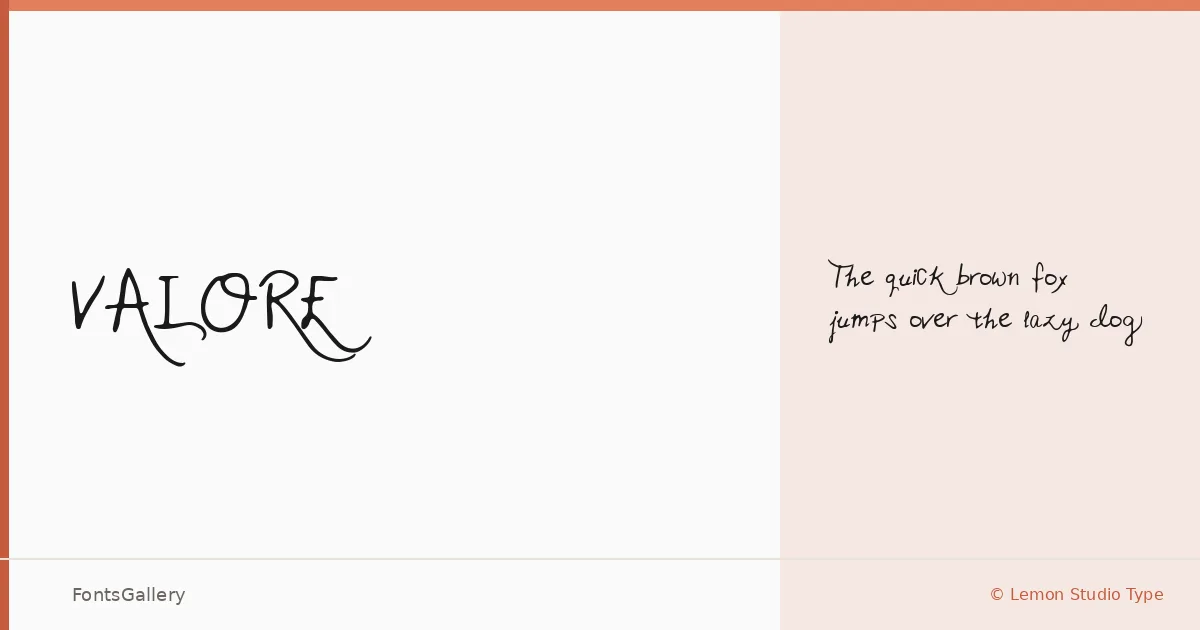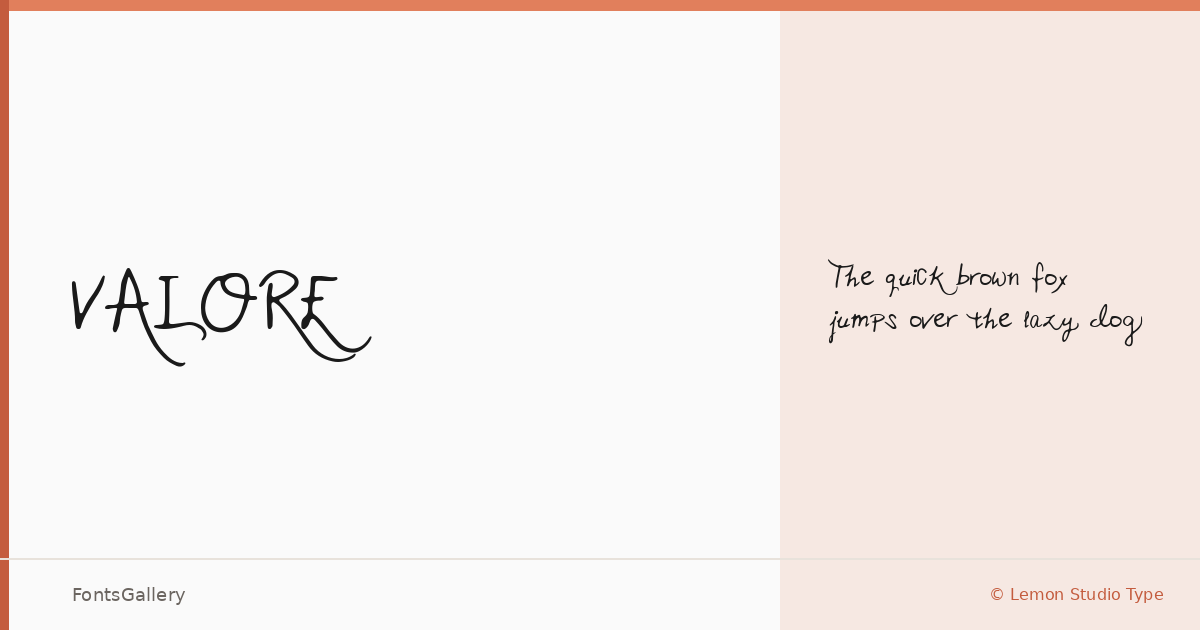
About VALORE Font
There is a certain unhurried quality to this script — the kind of flowing, connected letterforms that feel as though they were drawn with intention rather than speed. Created by Lemon Studio Type, VALORE arrives as a single Regular weight, a deliberate choice that keeps the focus entirely on the elegance of the hand itself.
The family sits firmly in the handwritten category, carrying a classic and romantic sensibility with a vintage warmth running through every curve. The single TTF cut is unhurried and expressive — the strokes have the kind of gentle contrast and soft flourish that reads as both refined and personal. It is the sort of script that feels equally at home in an ornate initial or a full logotype lockup.
The script is built for work where atmosphere matters: wedding stationery, invitation cards, greeting cards, and branding projects that need a romantic or vintage tone. Logo applications benefit from its legible yet characterful construction. For contrast pairings, the family sits well alongside Canela, Helvetica, ABC Arizona, Anglecia Pro, and Manal — each offering a different degree of structural counterpoint to the script's fluid warmth.